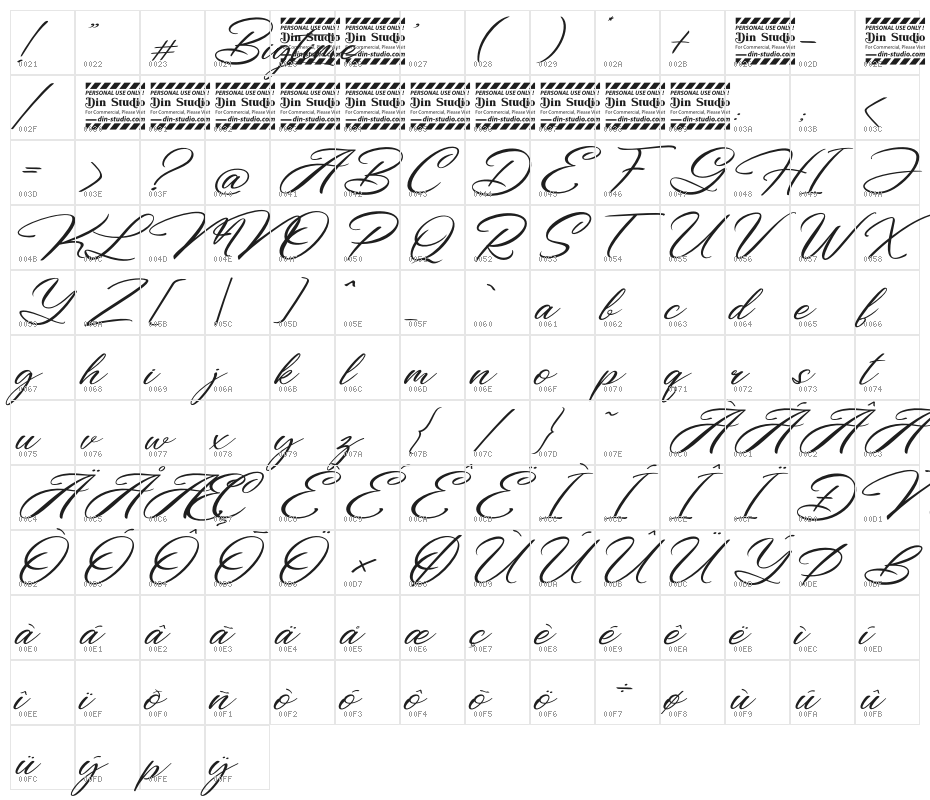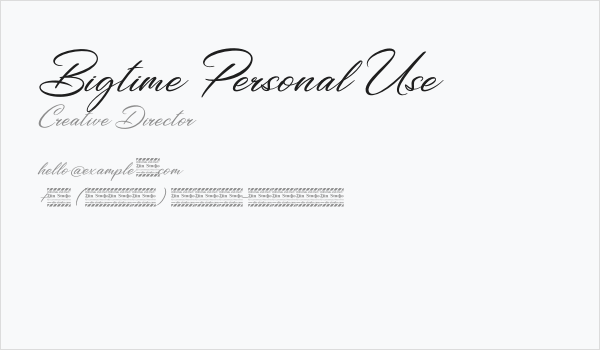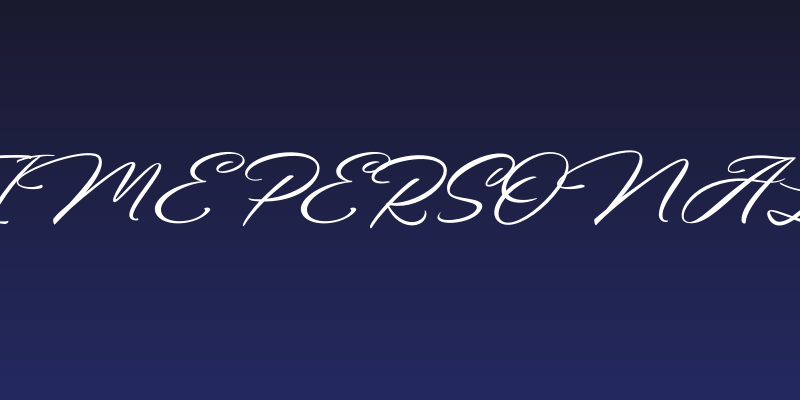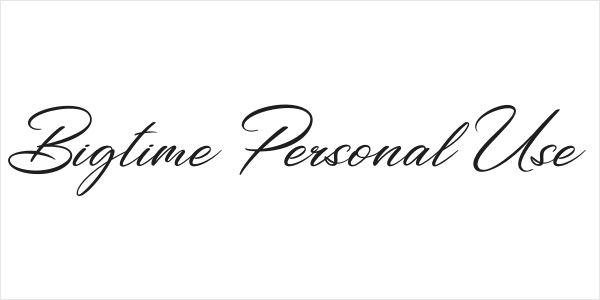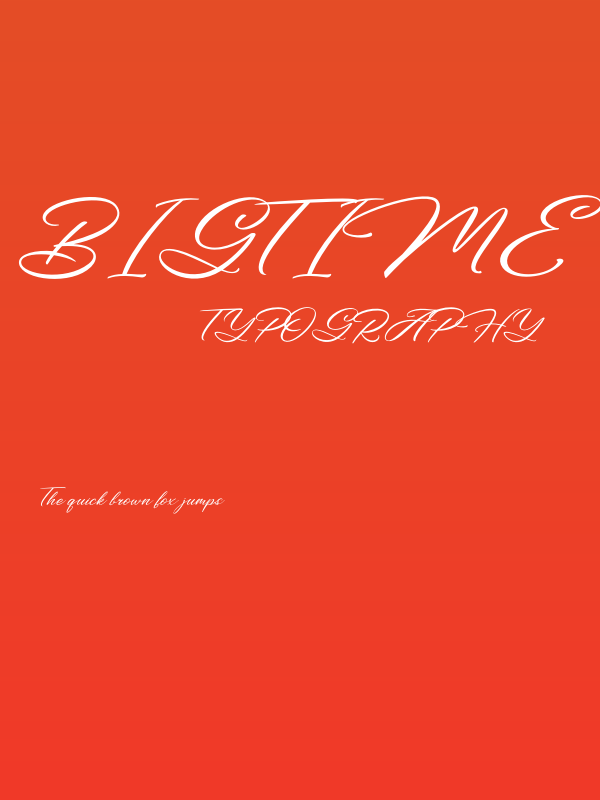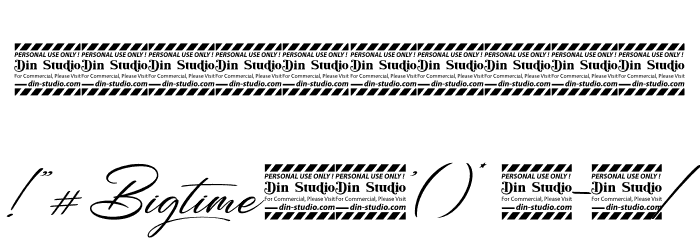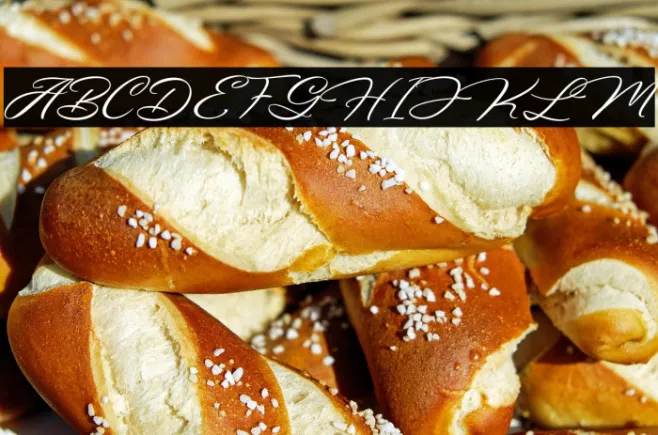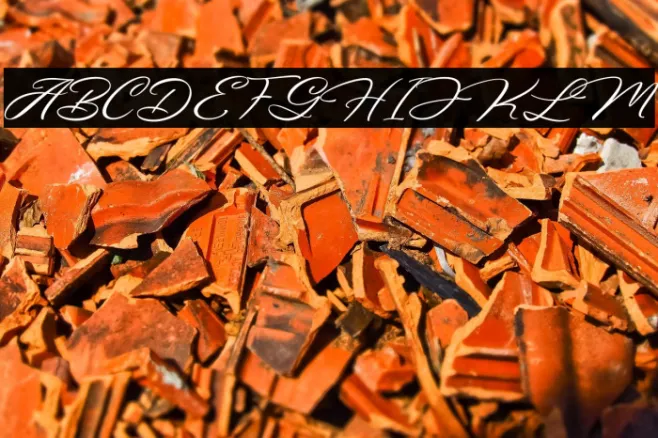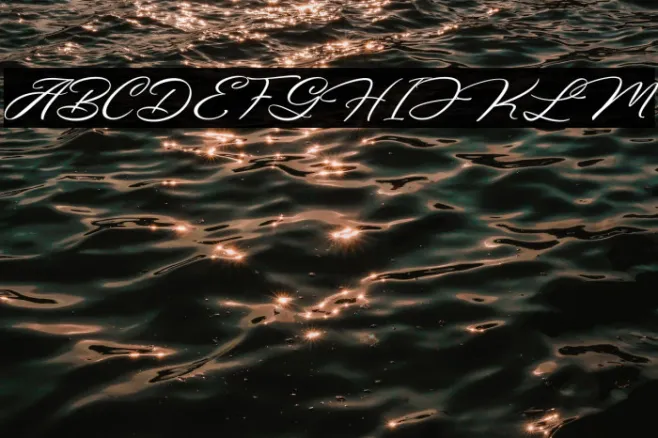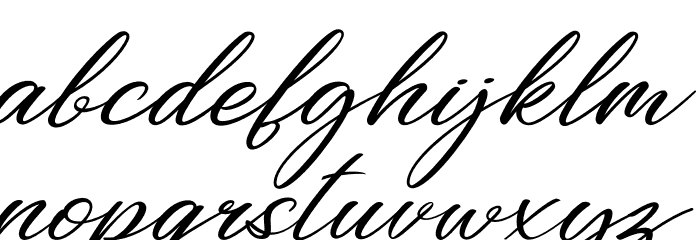
Bigtime Personal Use Font
Bigtime Personal Use Description
This elegant script font features flowing, connected letters with a classic and sophisticated appearance. The uppercase characters are slightly larger and more ornate, while the lowercase letters maintain a consistent, smooth flow. The font's design includes graceful curves and loops, giving it a sense of movement and fluidity. It is well-suited for formal invitations, branding, and any project that requires a touch of elegance. The special characters are designed to complement the overall style, maintaining the script's fluid nature.